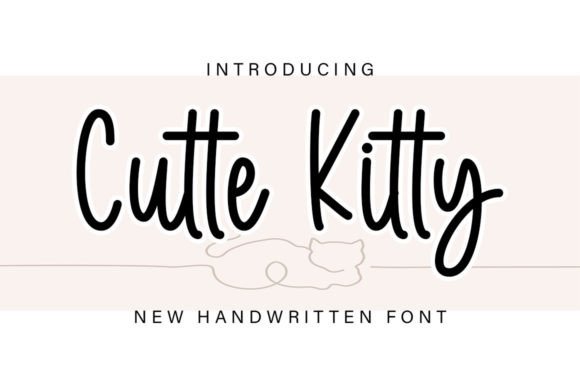
Dive into a world of enchanting allure with Cutte Kitty, a script font that exudes a symphony of sweetness and amiable charm. Conceived by the creative minds at DN Creative, this font is a captivating journey through the realm of handwriting, reminiscent of heartfelt notes penned by a cherished friend.
Crafted with impeccable precision, Cutte Kitty dances across the digital canvas with an effortless flow, mirroring the graceful strokes of a calligraphy master. Its delicate curves and playful flourishes lend an air of whimsical delight to any project, transforming ordinary words into visual masterpieces.
Step into the world of Cutte Kitty and unlock a treasure trove of creative possibilities. Whether you're designing wedding invitations that radiate love and joy, creating greeting cards that warm hearts with their heartfelt messages, or embarking on any design endeavor that calls for a touch of playful elegance, Cutte Kitty is your perfect companion.
With Cutte Kitty as your trusted font, your designs will transcend the mundane and blossom into works of art. Imagine your wedding invitations, adorned with Cutte Kitty's graceful script, becoming cherished keepsakes that evoke cherished memories for years to come. Picture your greeting cards, infused with Cutte Kitty's amiable charm, spreading warmth and cheer to loved ones near and far.
More than just a font, Cutte Kitty is an invitation to express your creativity, to infuse your designs with a touch of magic, and to leave an indelible mark on the hearts of your audience.
So, embrace the allure of Cutte Kitty, let your imagination soar, and embark on a creative journey that will leave you spellbound.